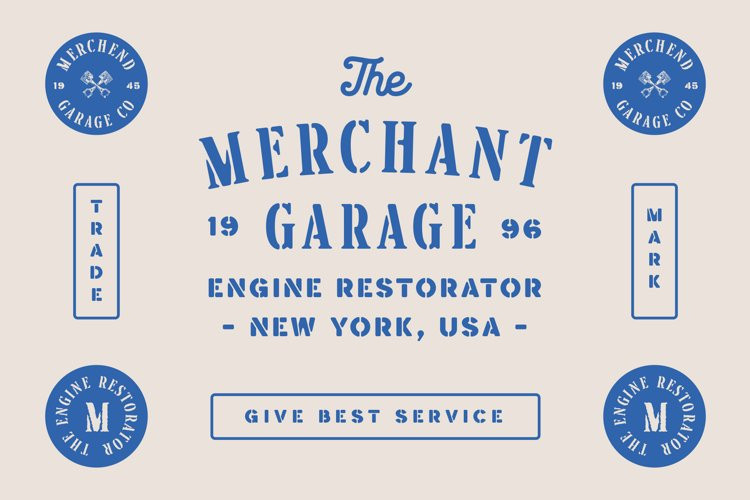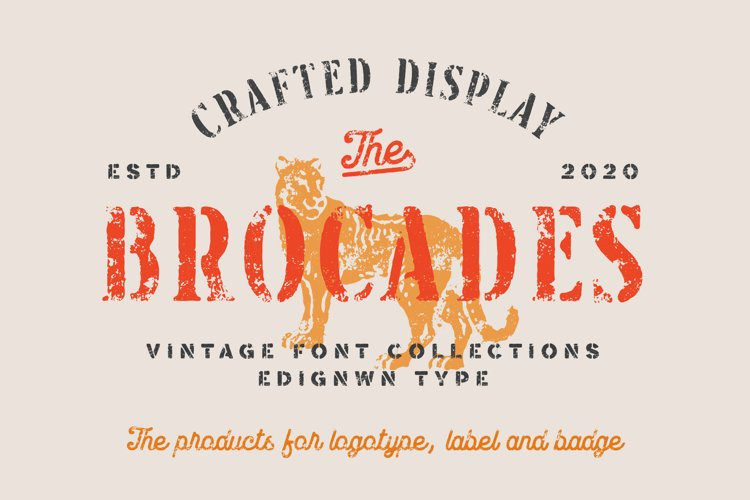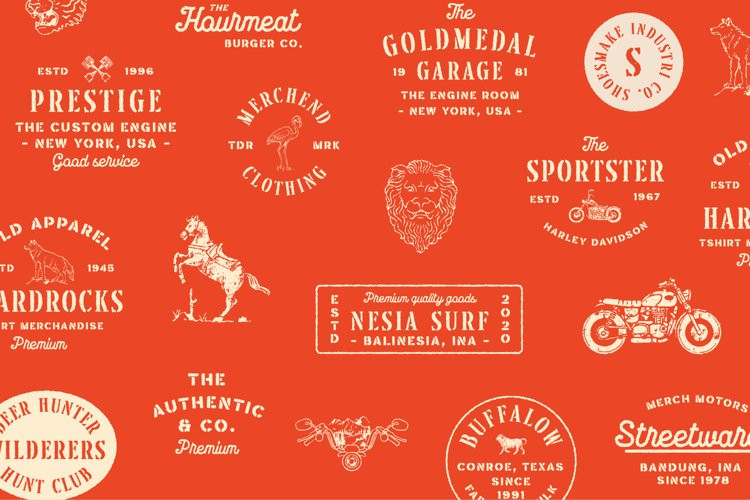
Brocades Font
Brocades FontThe font collection is called “Brocades”, it is a crafted display with vintage themes. These collections contain monoline script, sans serif stencil and serif stencil. Every font comes with 4 style typefaces (regular, rounded, rough and stamp). Brocades give more extras 2 pack illustrations (animals and motorcycle). This script font includes 3 sets alternates and swashes. The Brocades matches apply in some designs such as the logotype, poster, label, badge, packaging, apparel, branding, and more custom design.